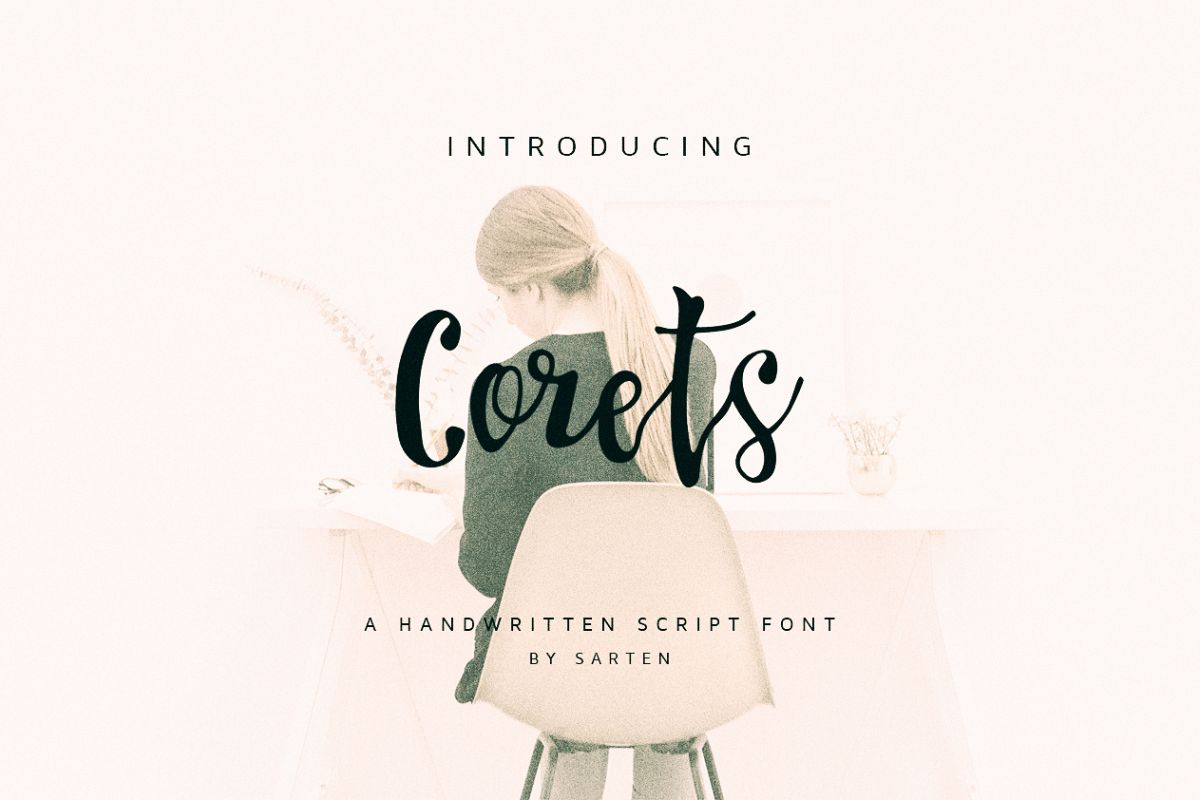
Corets
Introducing Corets is a script font. It's allow you to create stunning and easy hand-lettering in an instant. Ideal for logo, quotes, wedding, product label/packaging, fashion, letter, invitation, poster, merchandise, greeting cards, etc